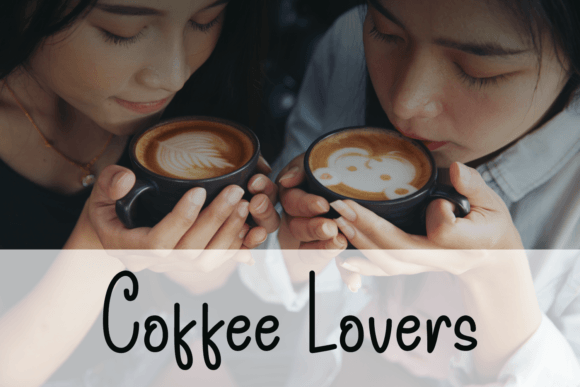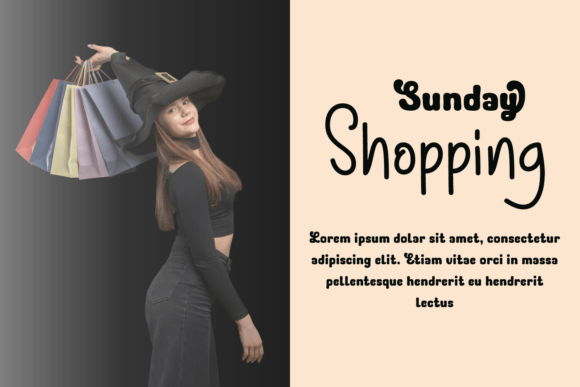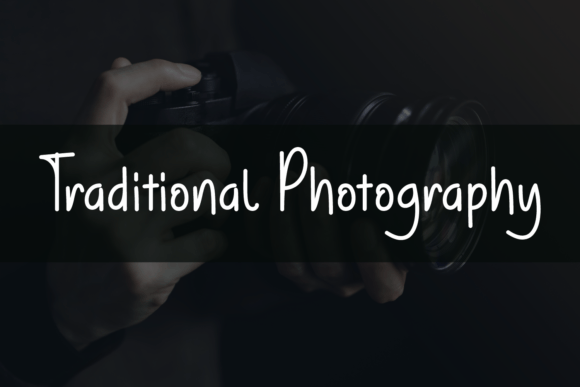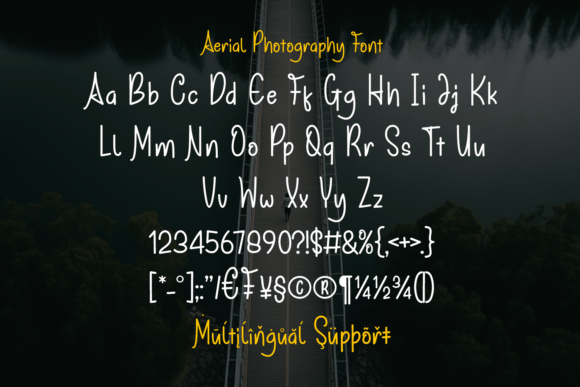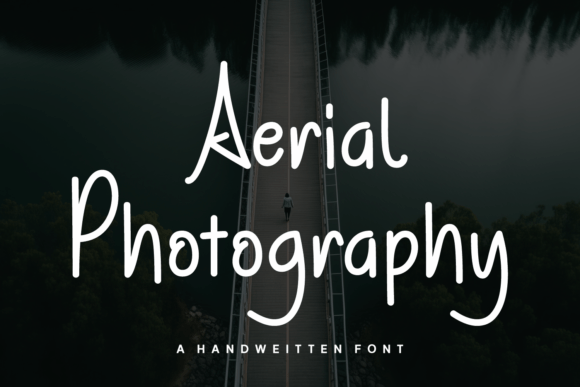
Aerial Photography Font: Elevate Your Designs with a Sense of Freedom and Adventure
In the world of typography, fonts play a crucial role in conveying the tone and personality of a design. For designers and crafters looking for a font that embodies a sense of freedom and adventure, Aerial Photography Font is an excellent choice. This charming handwritten font is perfect for creating a variety of designs that exude a natural and relaxed vibe.
The Characteristics of Aerial Photography Font
Aerial Photography Font is a handwritten font that boasts clean and casual strokes, making it an ideal choice for designs that require a personal touch. The font’s unique characteristics include:
• Handwritten style: Aerial Photography Font has a charming handwritten style that gives it a personal and approachable feel.
• Clean and casual strokes: The font’s clean and casual strokes make it perfect for designs that require a relaxed and natural vibe.
• Versatility: Aerial Photography Font is versatile and can be used for a variety of designs, from greeting cards to social media posts.
Uses of Aerial Photography Font
Aerial Photography Font is a versatile font that can be used for a wide range of designs, including:
• Greeting cards: The font’s handwritten style and clean strokes make it perfect for creating personalized greeting cards for special occasions.
• Social media posts: Aerial Photography Font is an excellent choice for social media posts, as it adds a personal touch to your online content.
• Blog posts: The font’s natural and relaxed vibe makes it perfect for blog posts that require a personal and approachable tone.
• Branding: Aerial Photography Font can be used for branding purposes, such as creating logos, business cards, and letterheads.
Why Choose Aerial Photography Font?
There are several reasons why designers and crafters should choose Aerial Photography Font for their designs:
• Unique style: Aerial Photography Font has a unique handwritten style that sets it apart from other fonts.
• Easy to read: The font’s clean and casual strokes make it easy to read, even at small sizes.
• Versatile: Aerial Photography Font is versatile and can be used for a wide range of designs.
• Natural and relaxed vibe: The font’s natural and relaxed vibe makes it perfect for designs that require a personal touch.
Tips for Using Aerial Photography Font
Here are some tips for using Aerial Photography Font in your designs:
• Pair with other fonts: Aerial Photography Font can be paired with other fonts to create a unique and visually appealing design.
• Use for headlines and body text: The font’s clean and casual strokes make it perfect for use in headlines and body text.
• Experiment with colors: Aerial Photography Font can be used with a variety of colors to create a design that matches your brand’s personality.
Font Name Aerial Photography Font
Author Wankriss
Aerial Photography Font is a charming handwritten font that is perfect for designers and crafters looking for a font that embodies a sense of freedom and adventure. With its clean and casual strokes, versatility, and natural and relaxed vibe, this font is ideal for a wide range of designs. By following the tips outlined above, you can create stunning designs that showcase the unique characteristics of Aerial Photography Font.